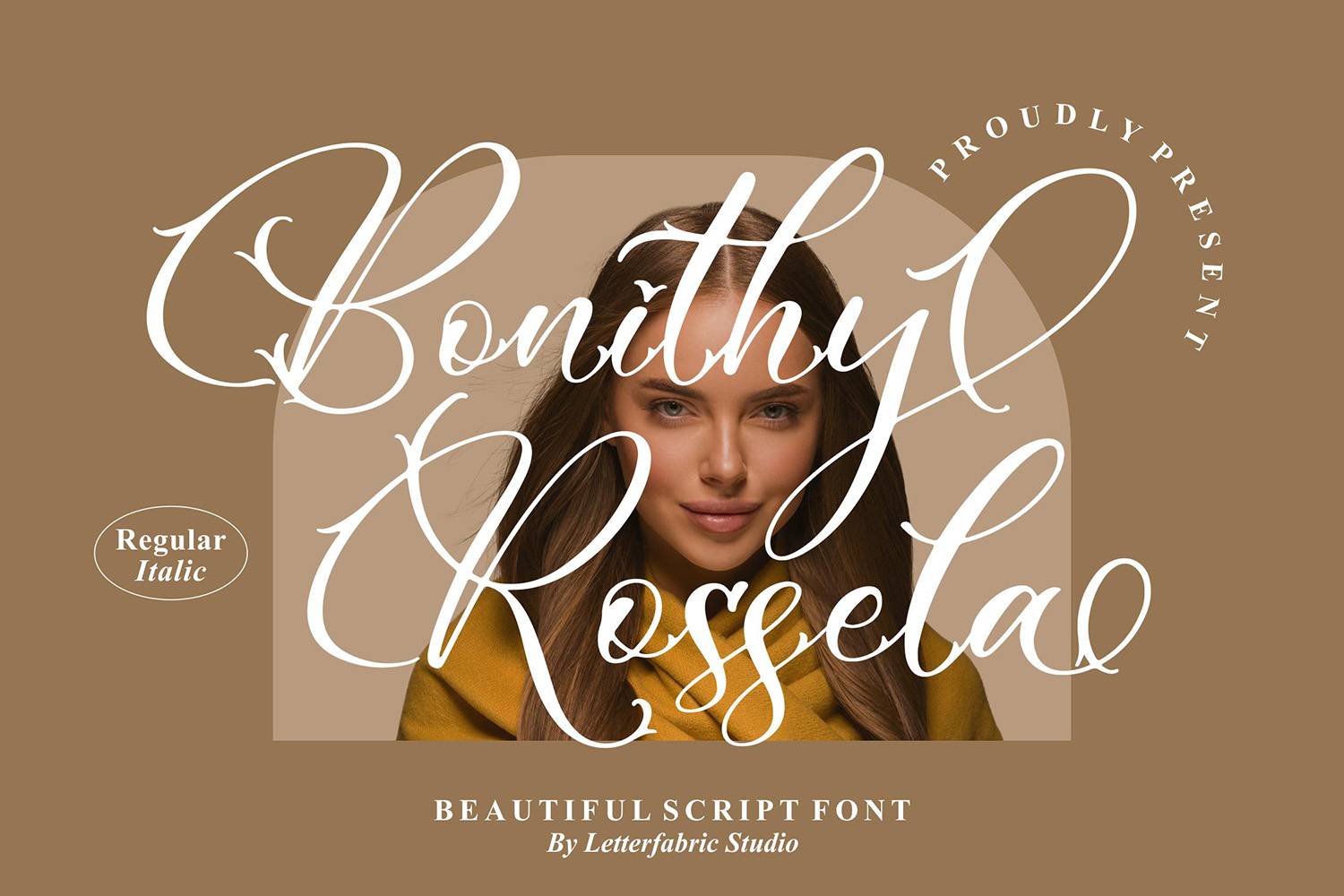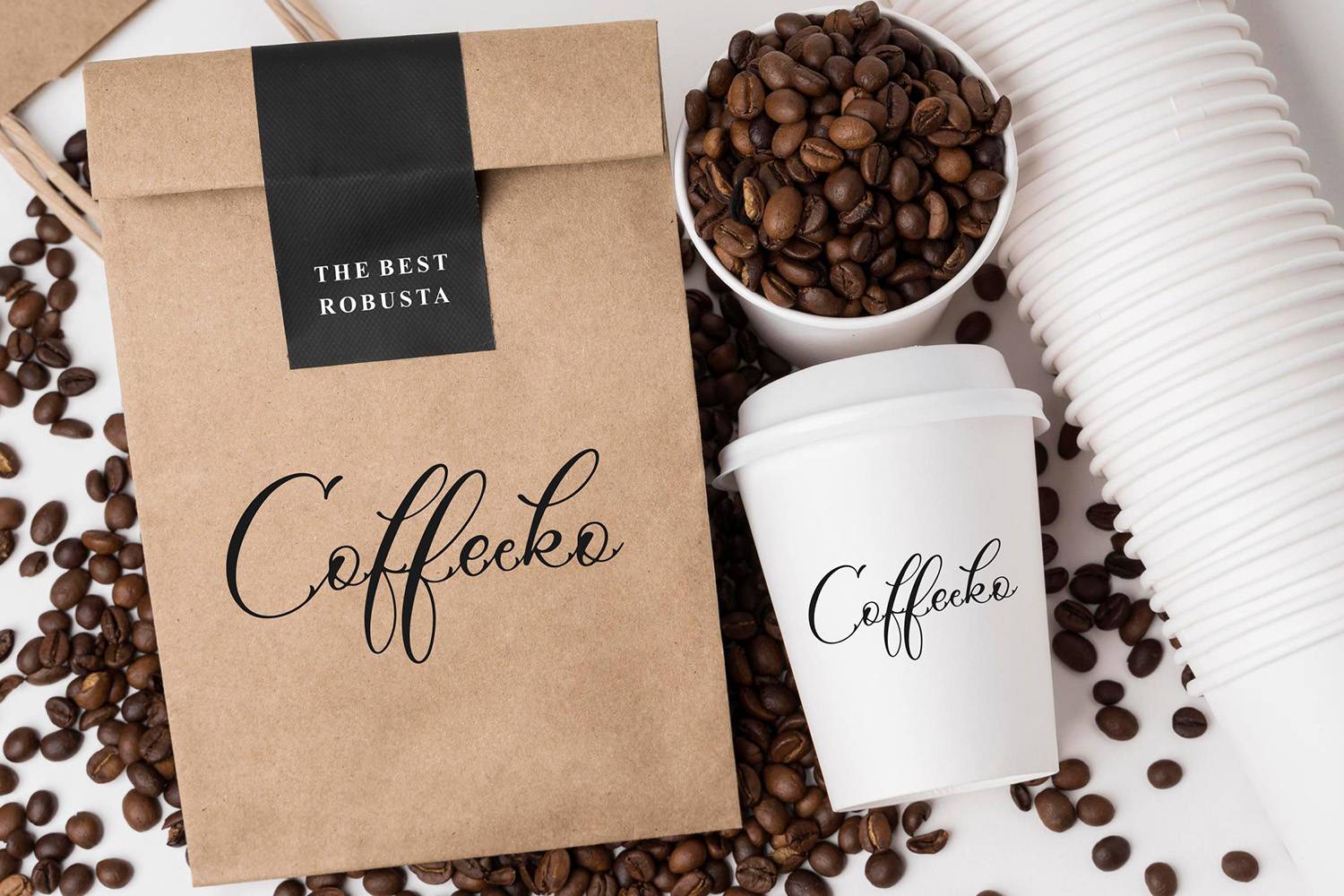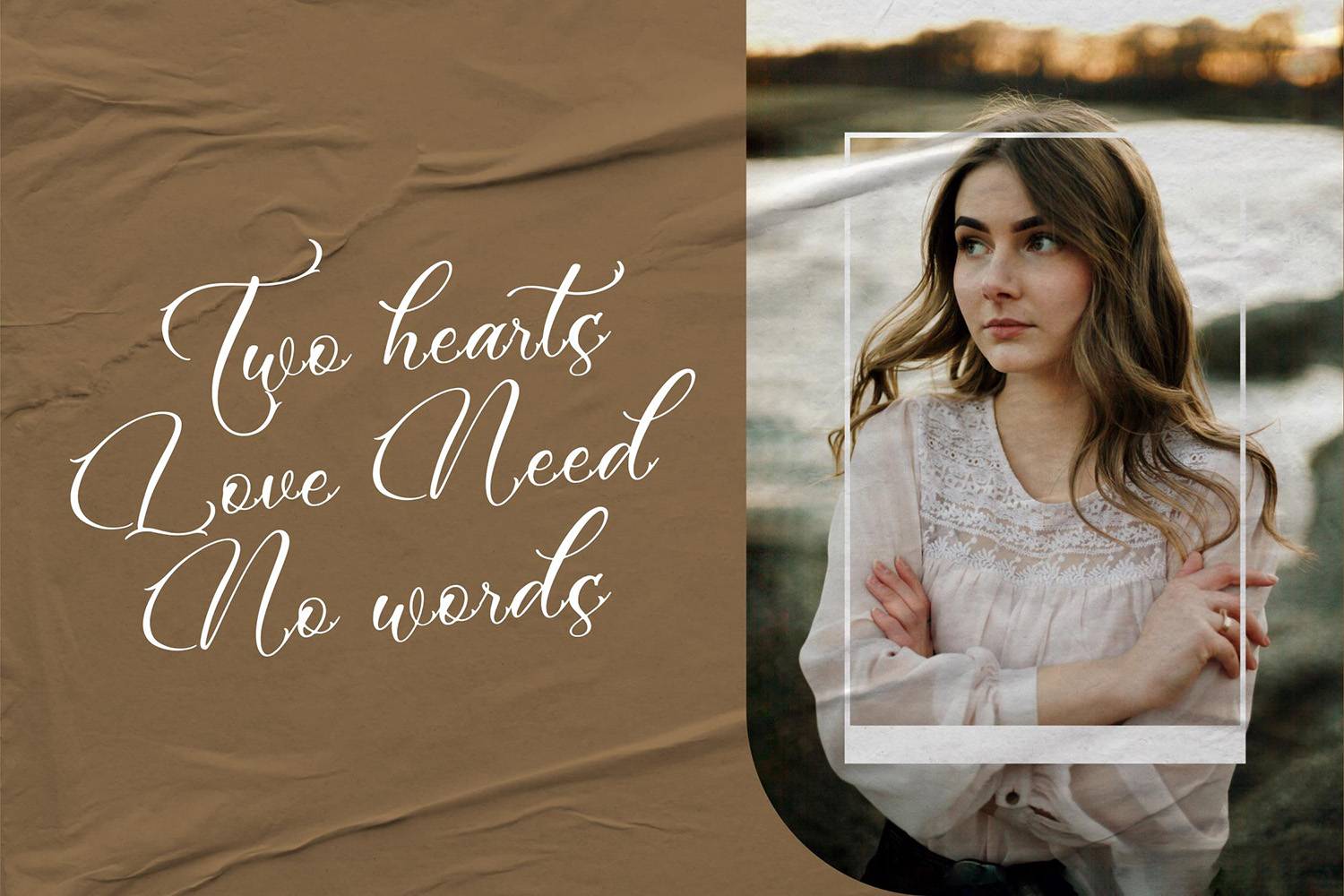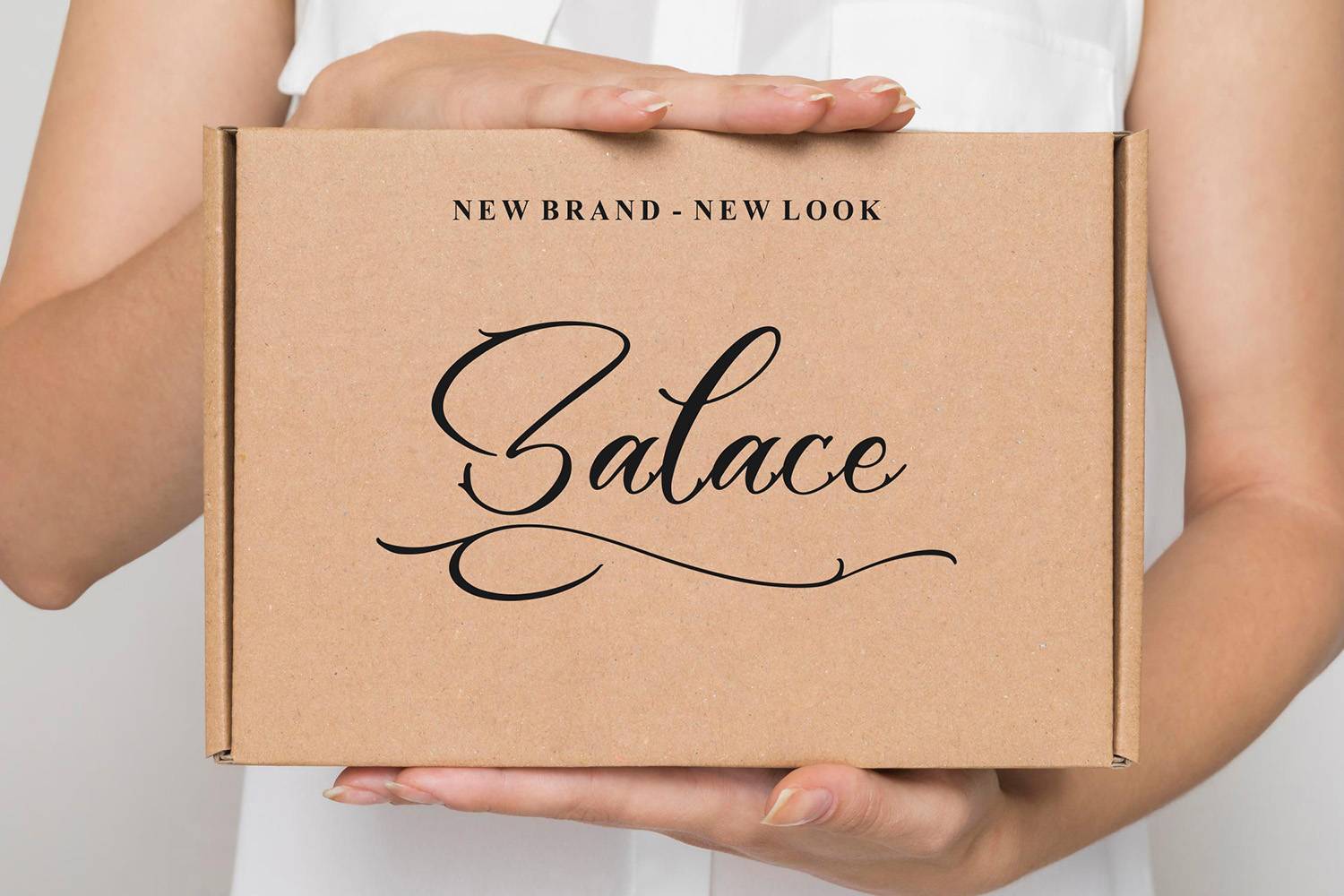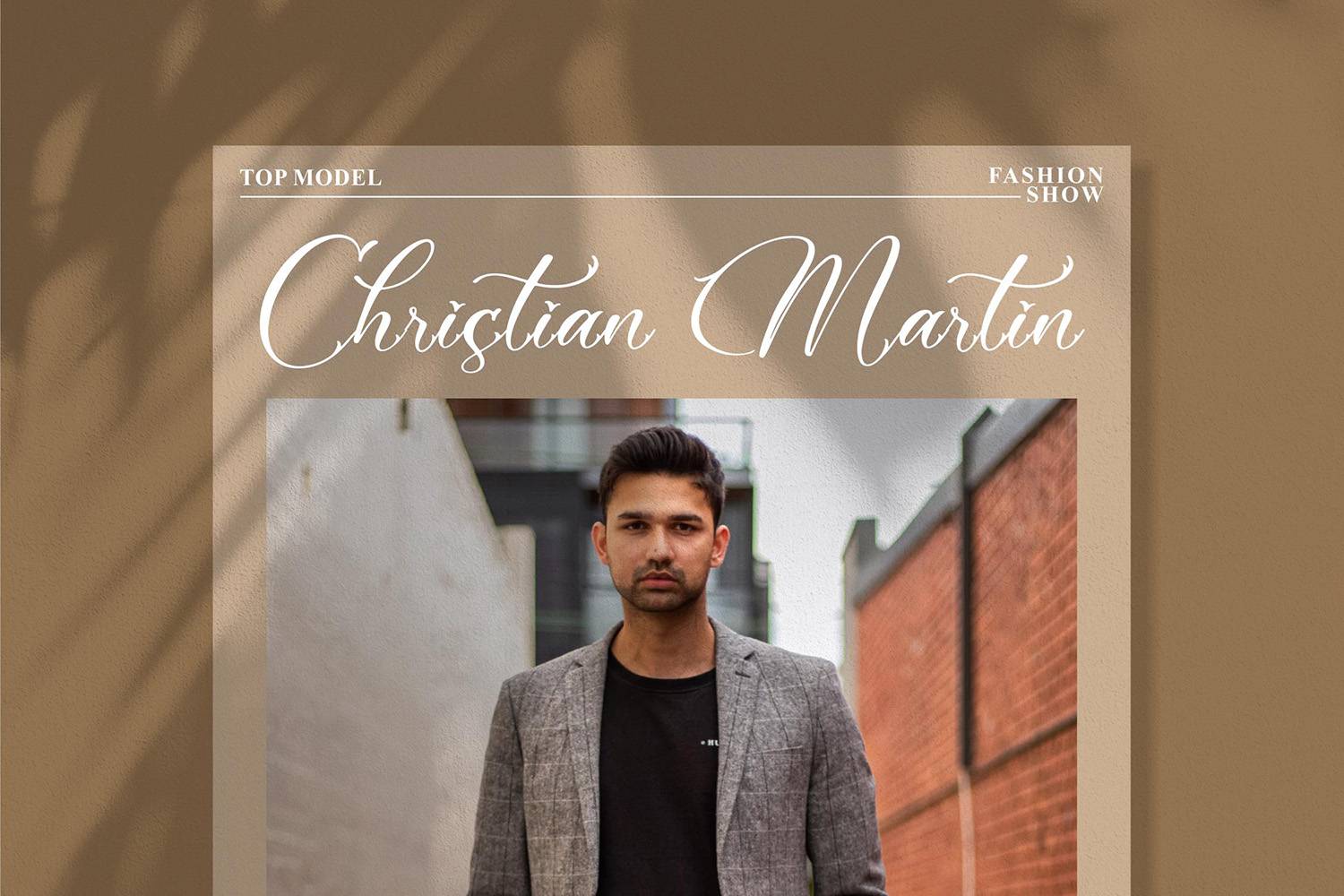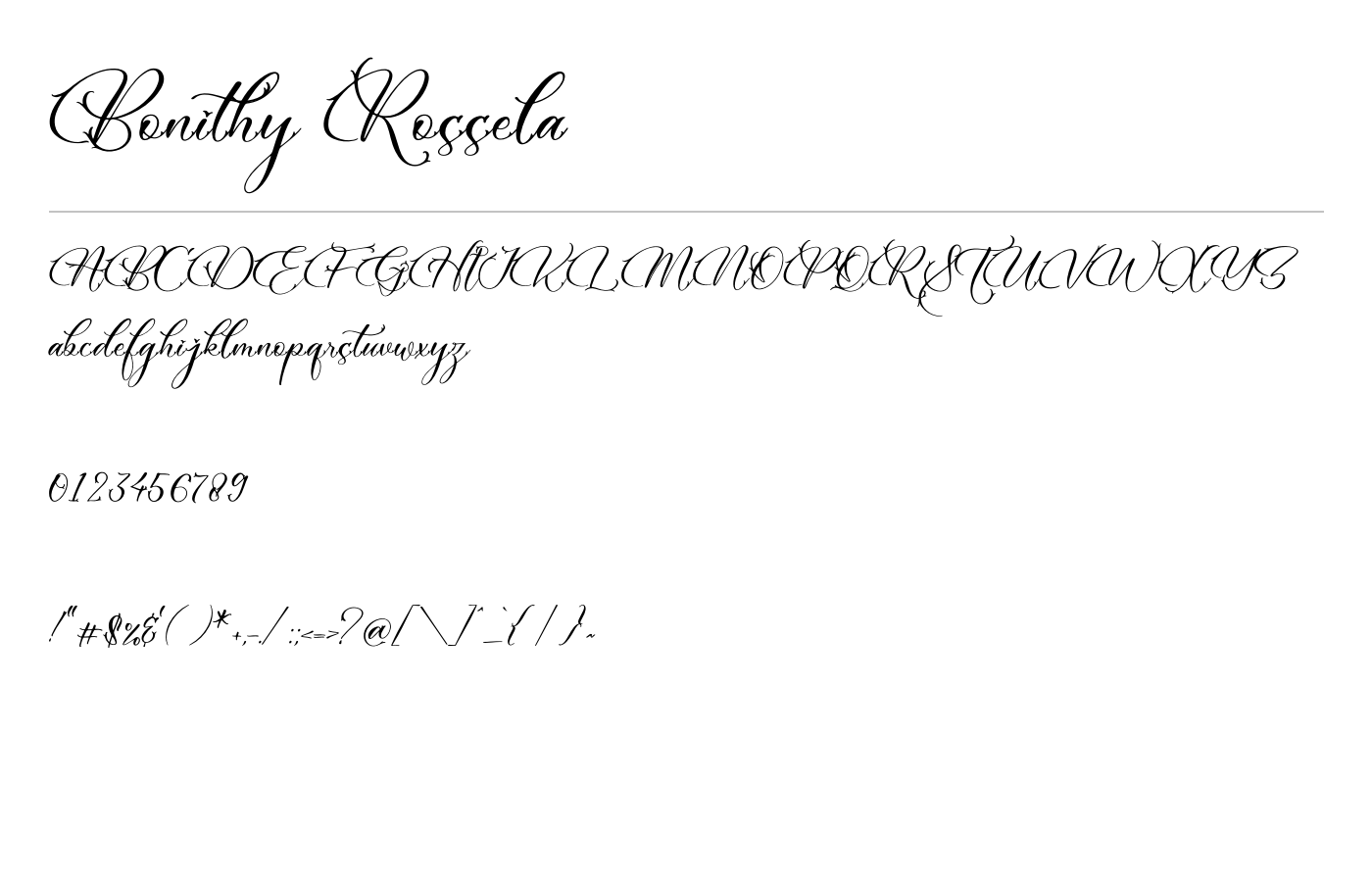
Bonithy Rossela is an elegant script font characterized by delicate, flowing strokes and elaborate swashes, giving it a refined and sophisticated look. Its thin, calligraphic letterforms with high contrast and graceful curves make it ideal for luxury branding, wedding invitations, and elegant editorial designs where a touch of classic beauty is desired. This font brings a personal, handwritten charm that works beautifully in headlines and decorative accents.
Bonithy Rossela Font
About Bonithy Rossela Font